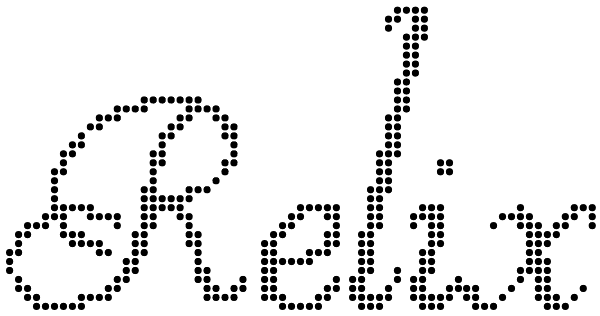
Relix
Relix, emulating the old videogame's screen fonts, that's a good font to non-formam small texts, names, logotypes, titles, headers, topics etc., developed from the original Reliant's Intellecta typeface. Big sizes of this font can be used for texts...